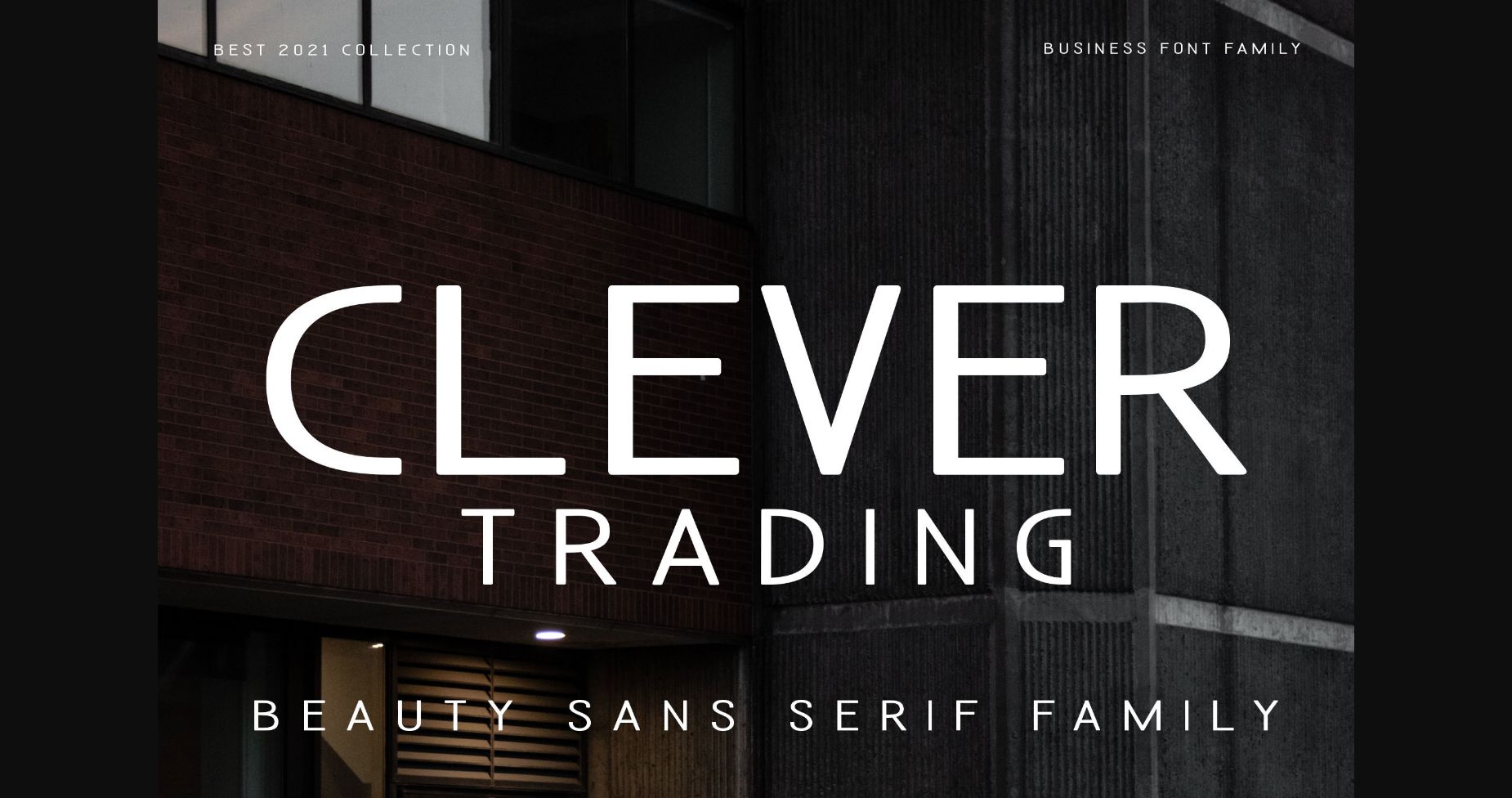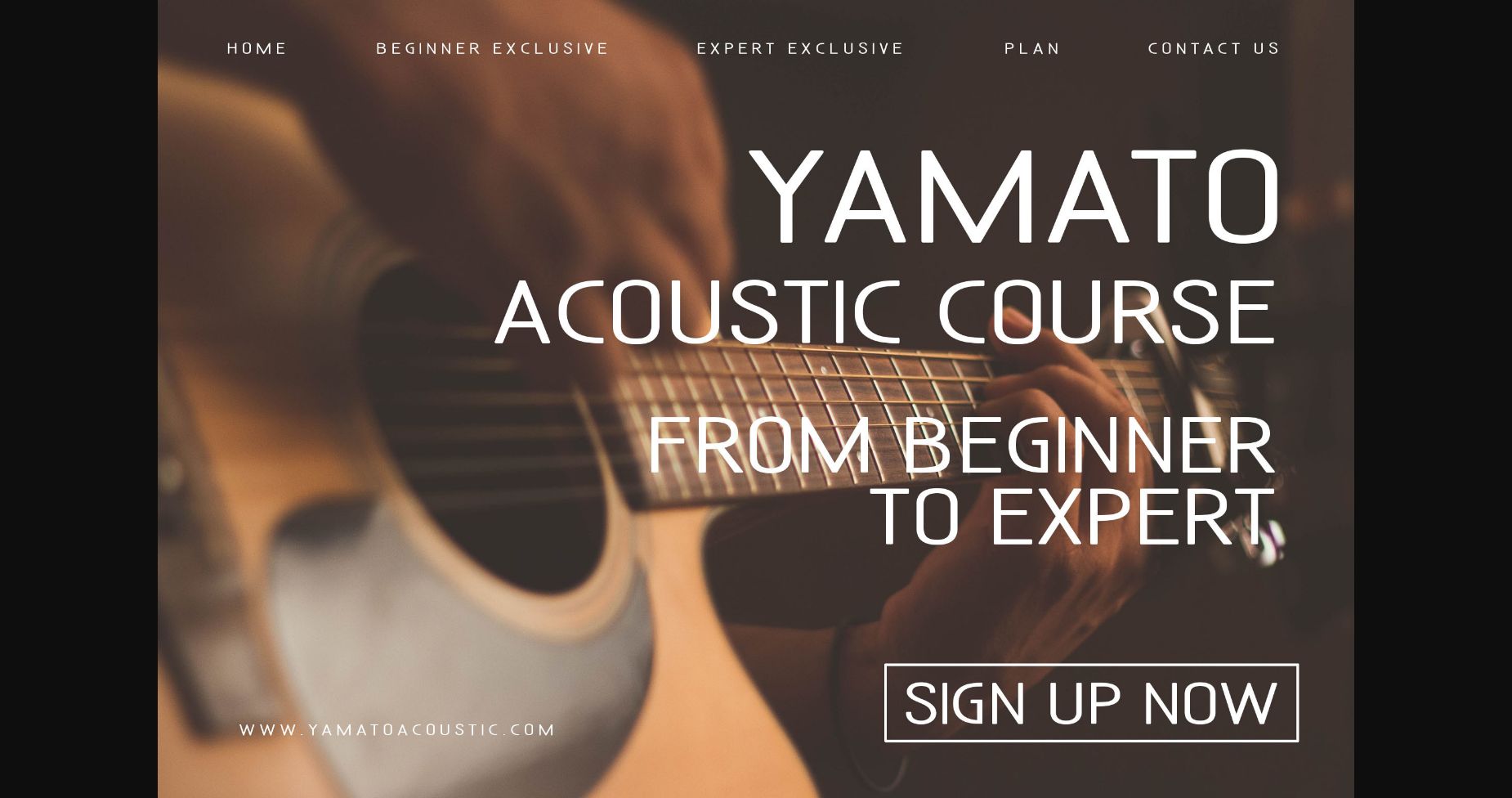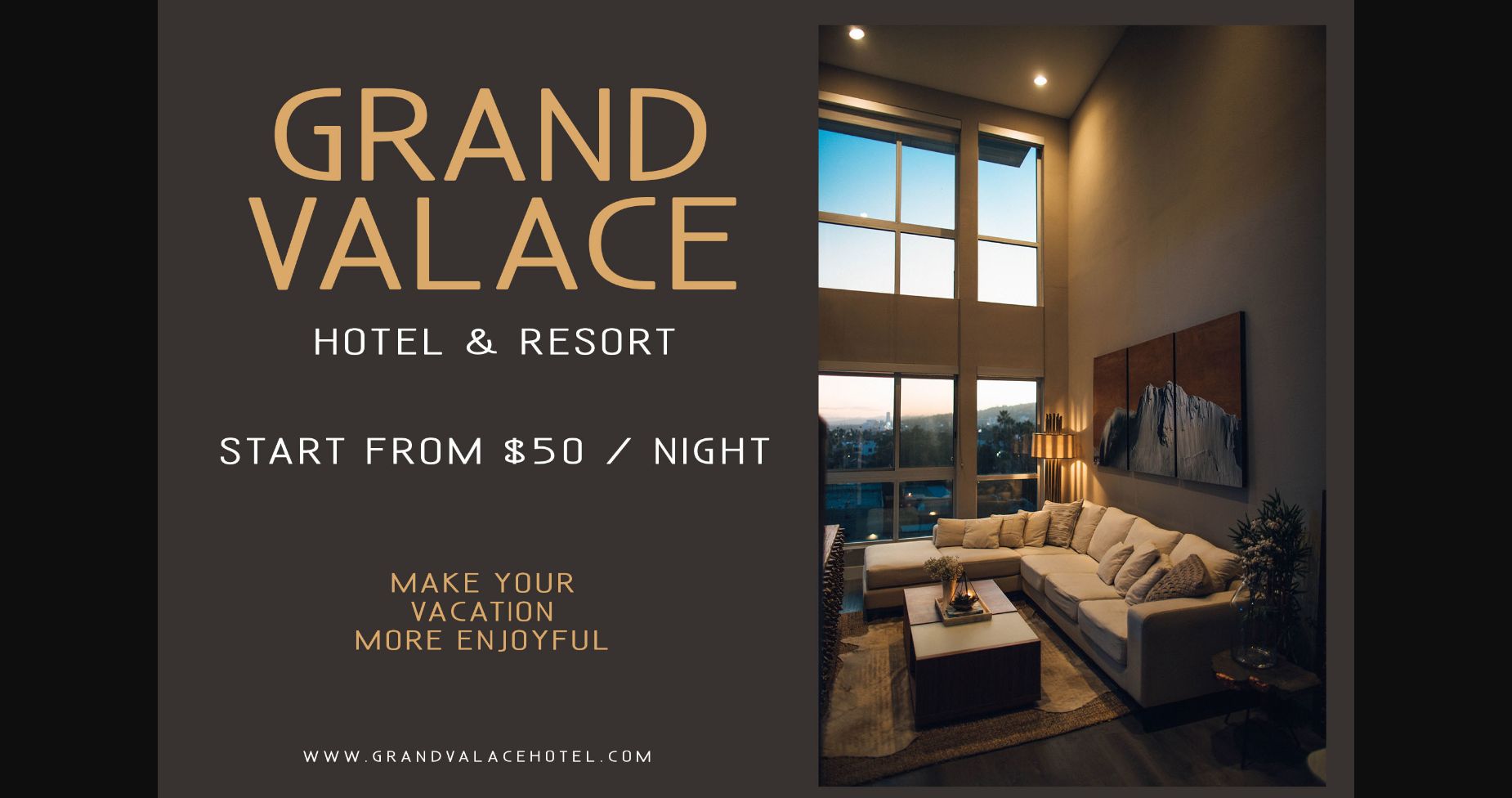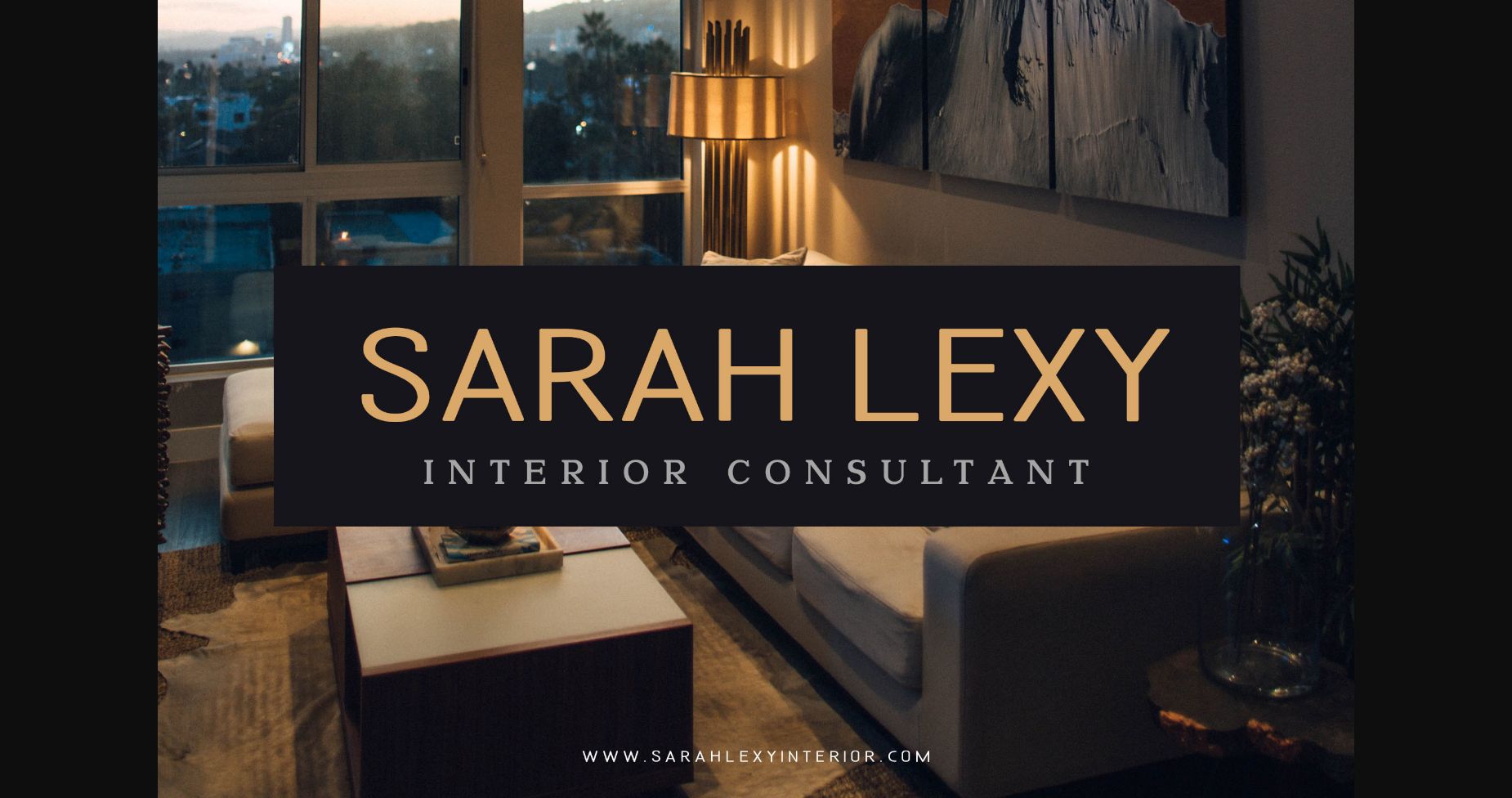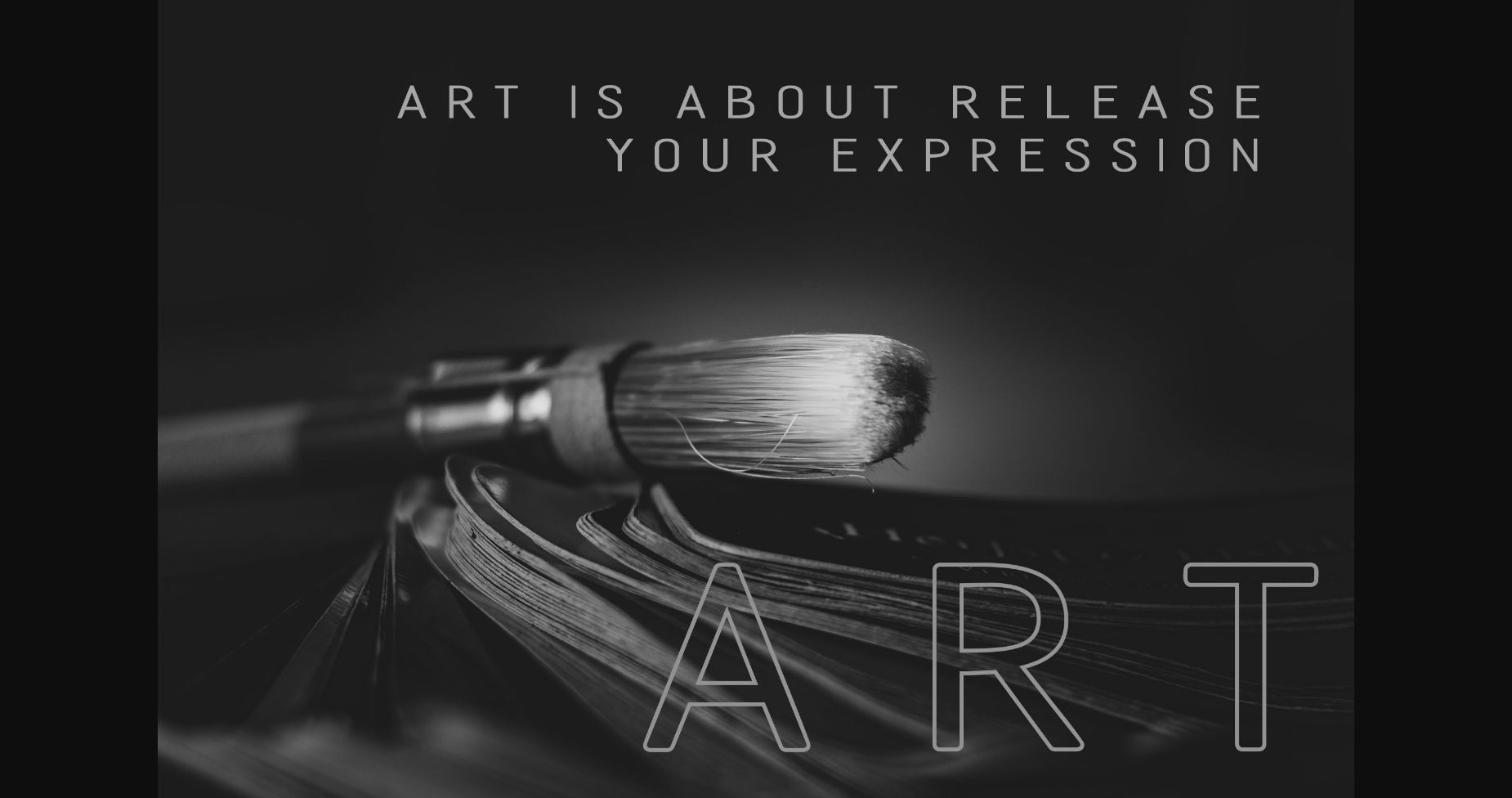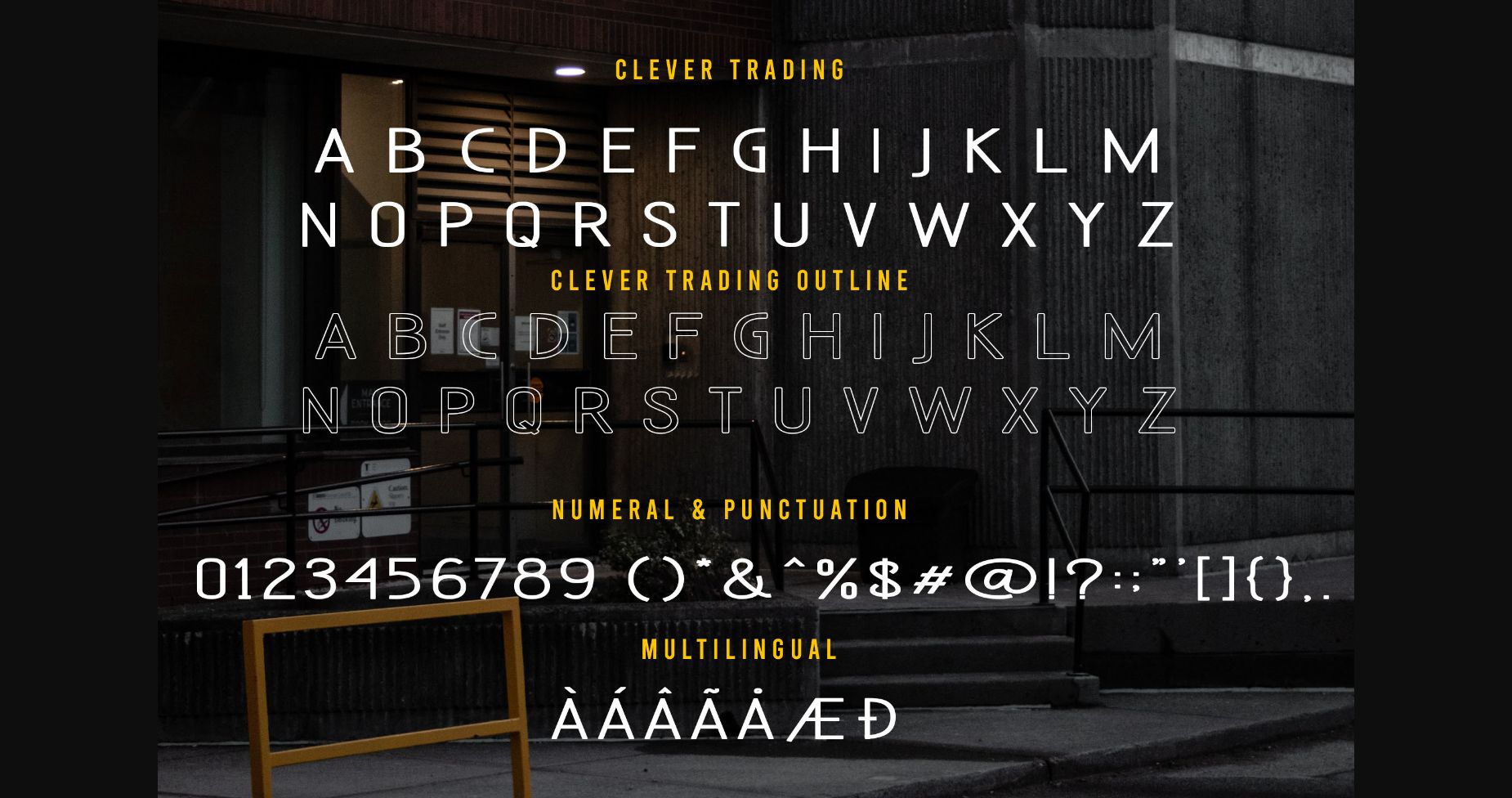
Clever Trading Font
About Clever Trading Font
Clever Trading is a simple and modern sans serif font. This font is ideal for writing web designs, business cards, or pretty much anything else that requires a unique touch.